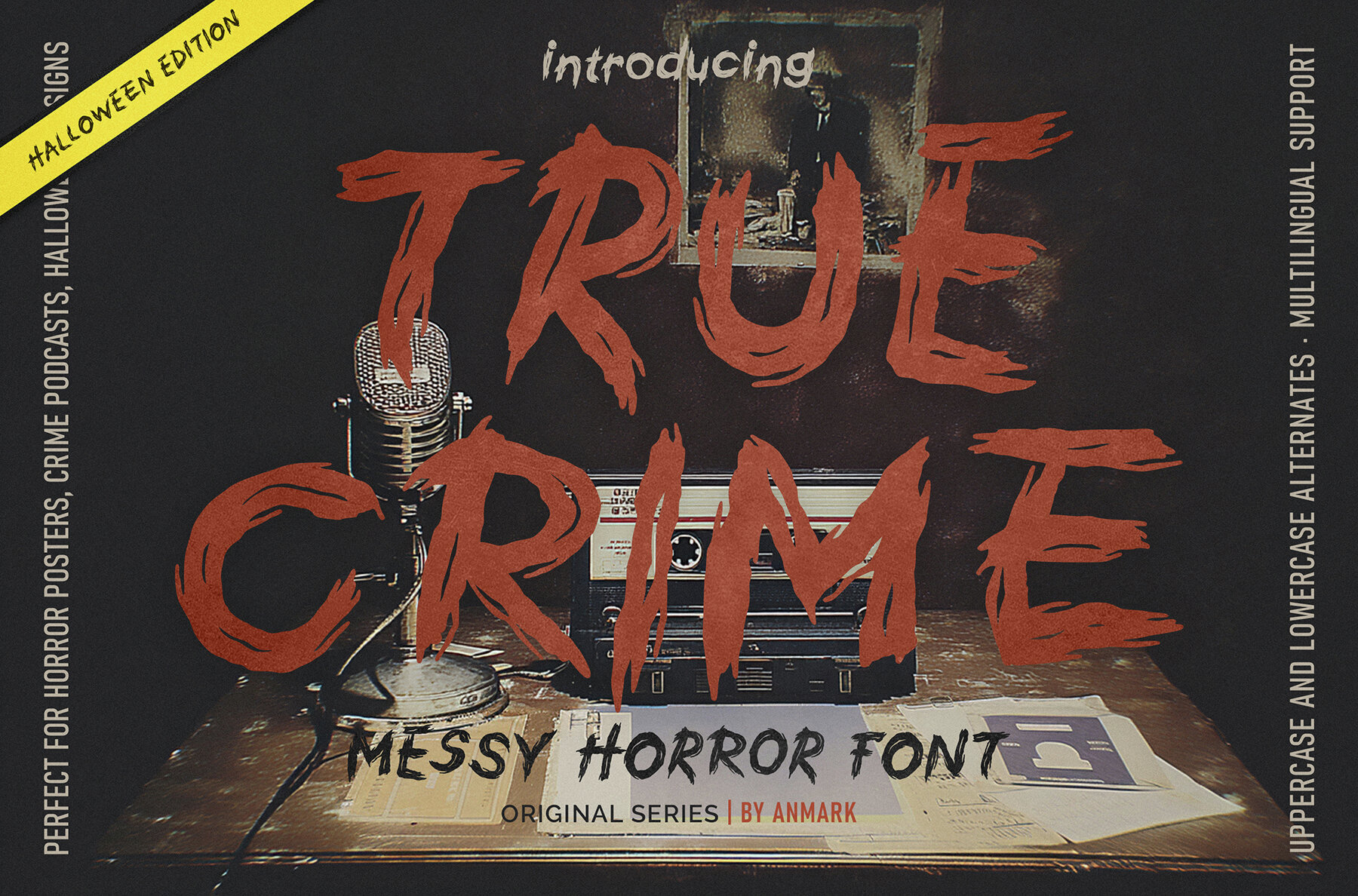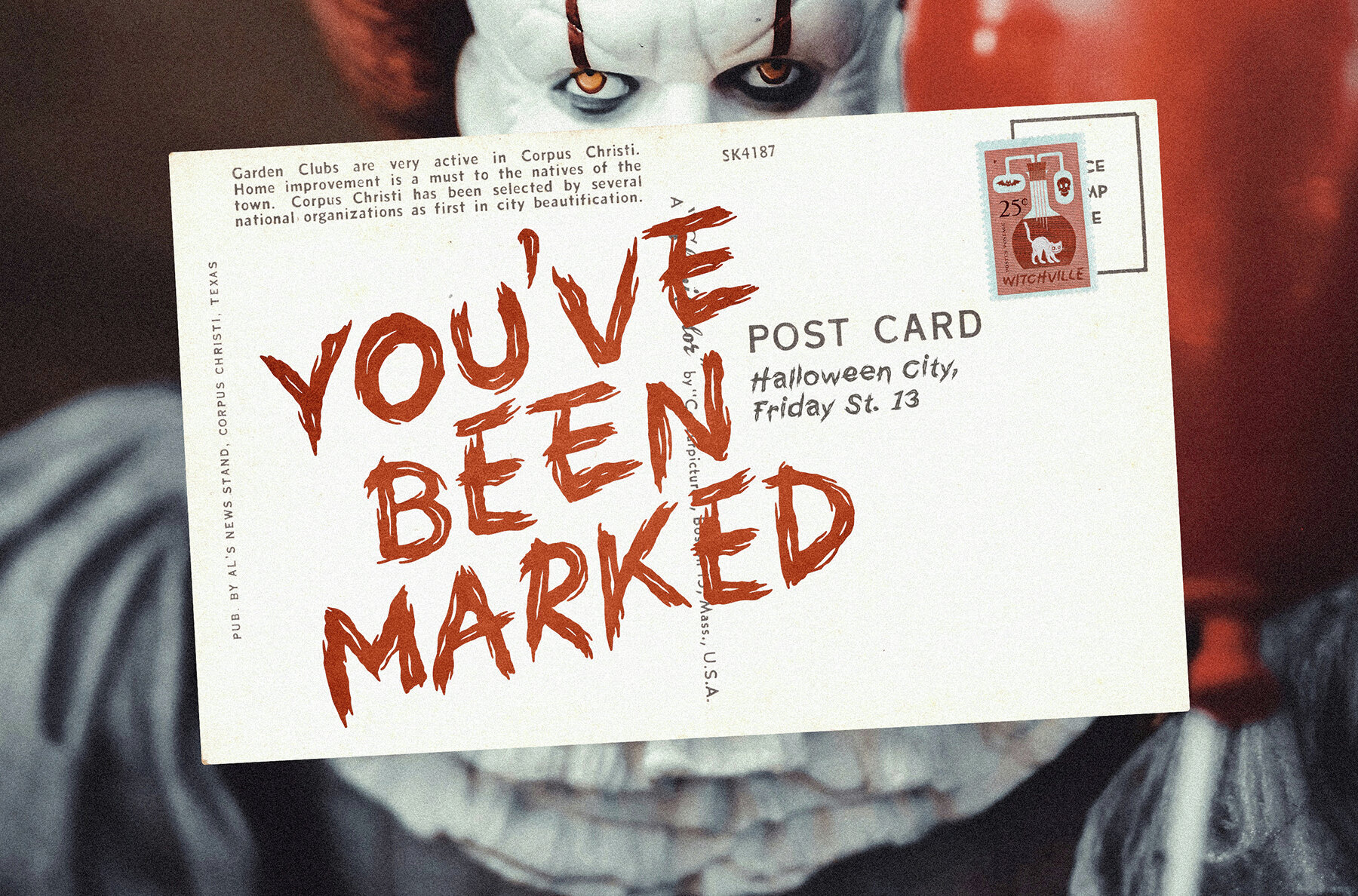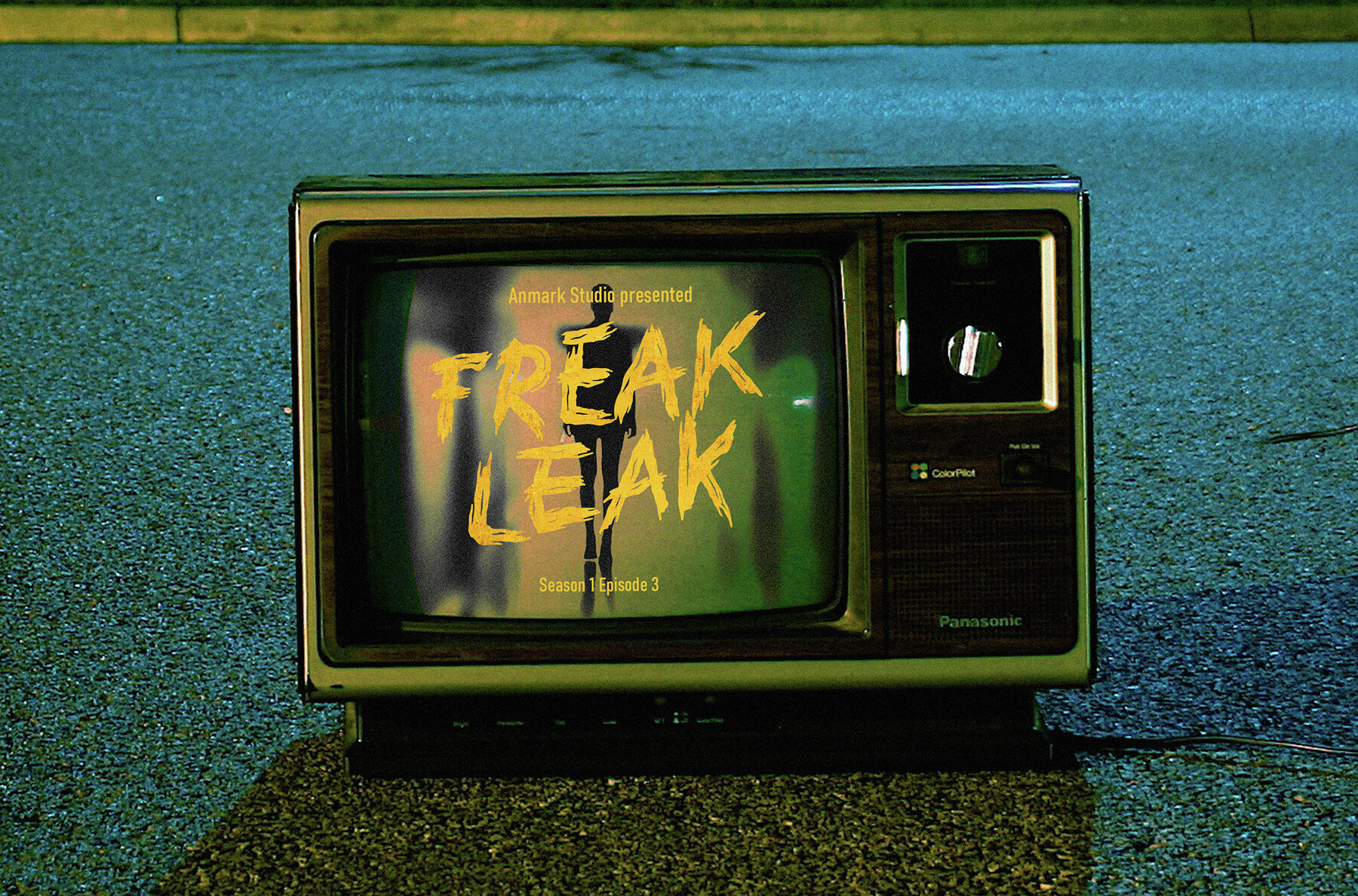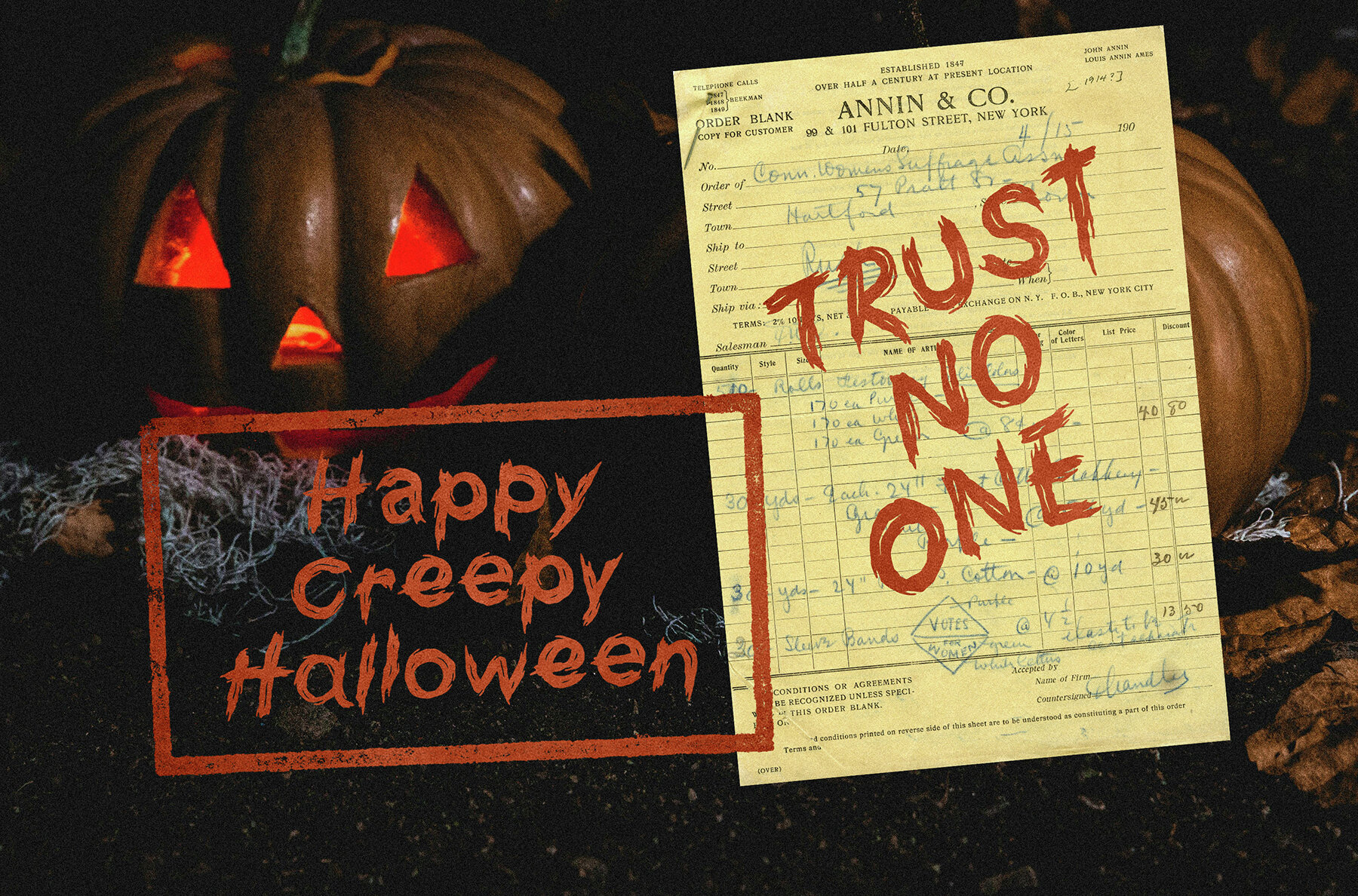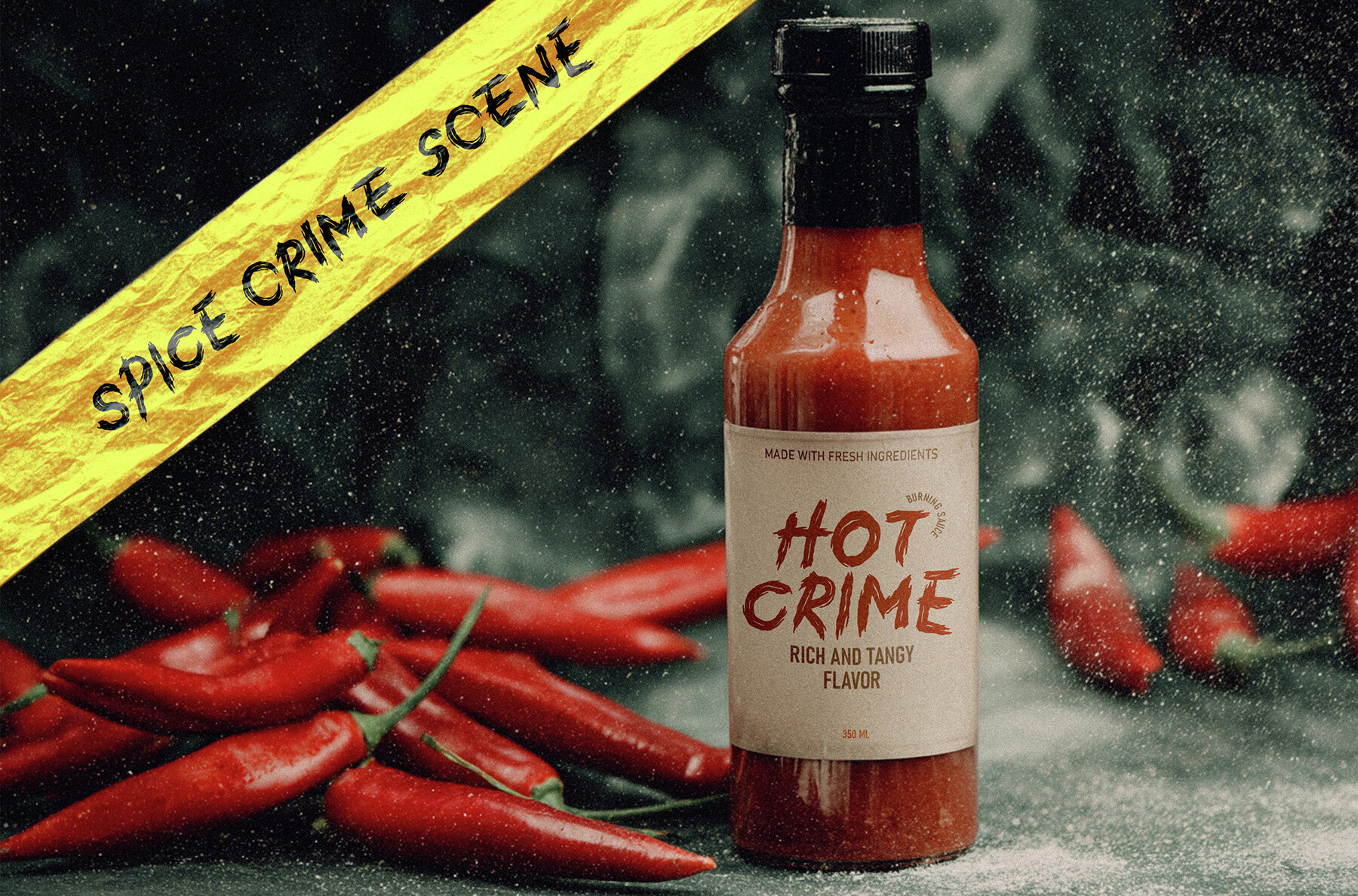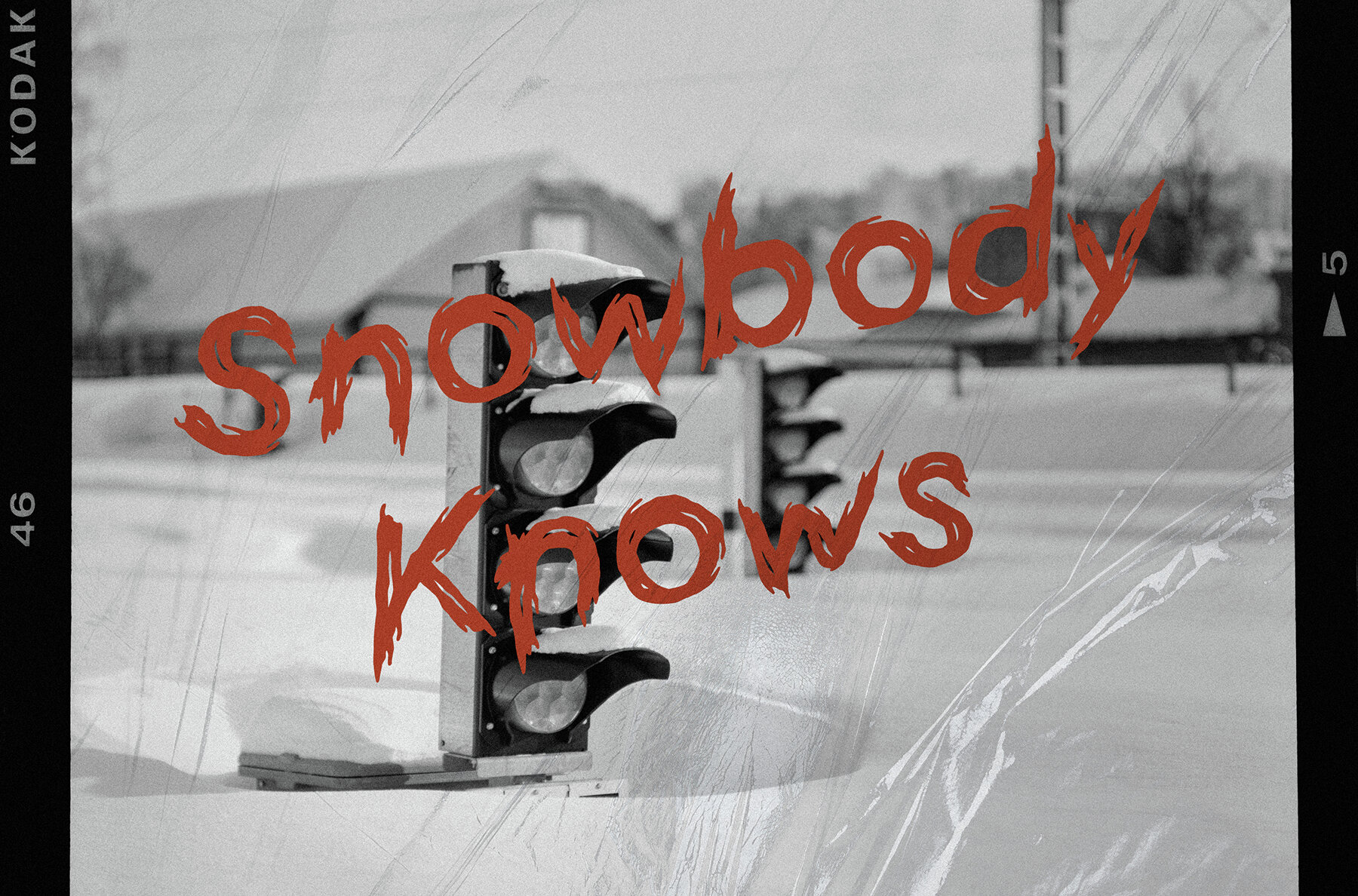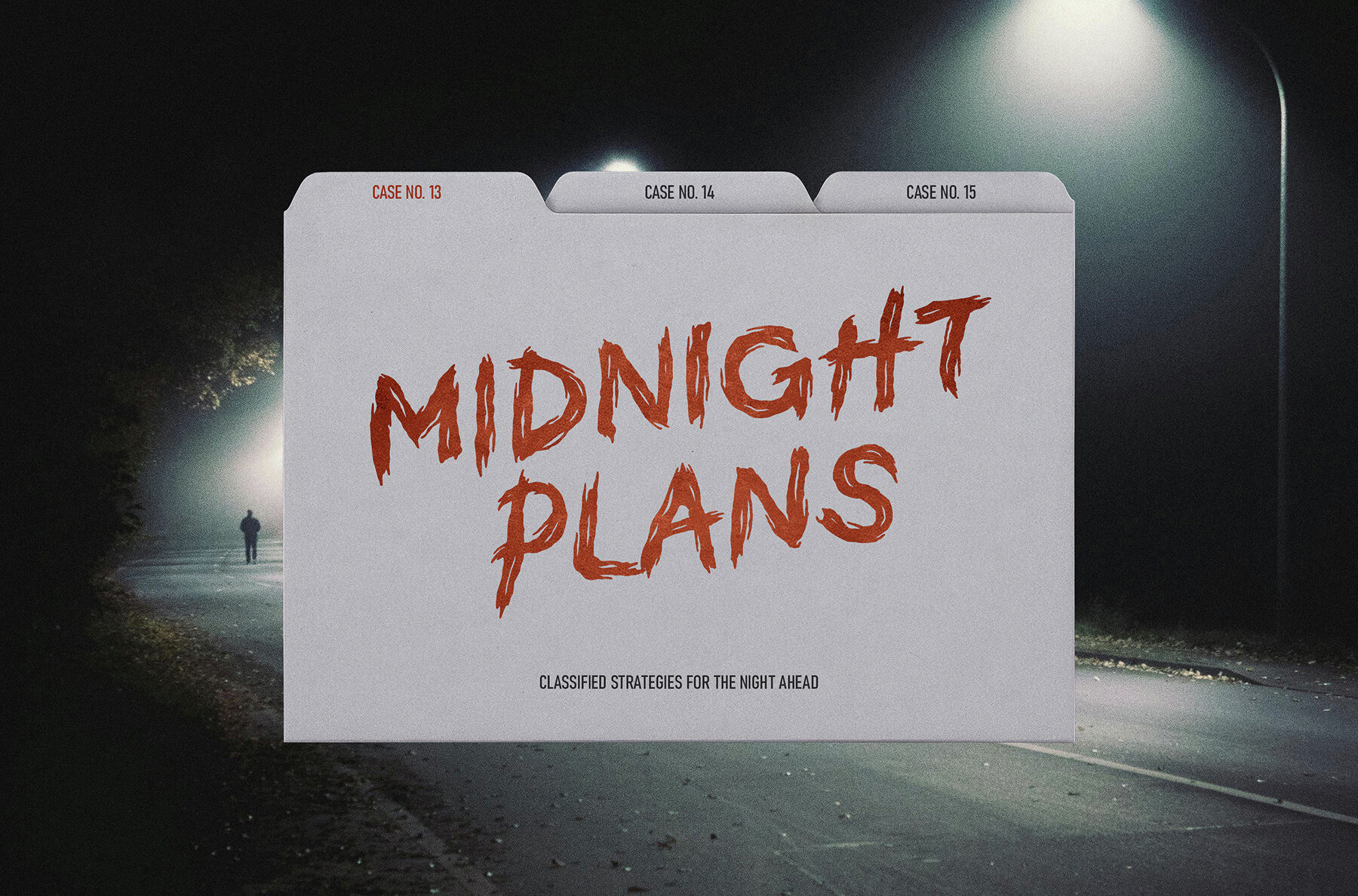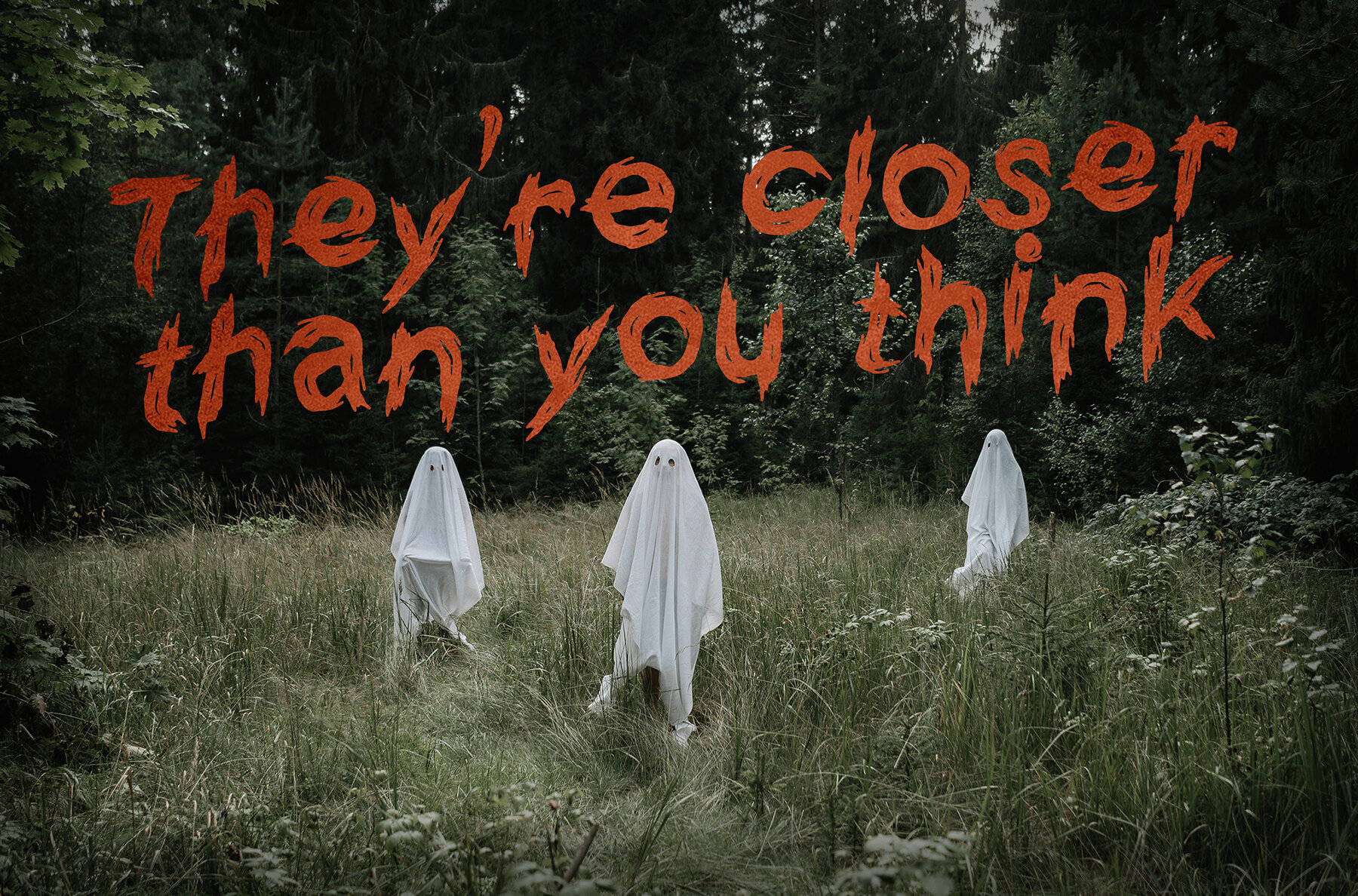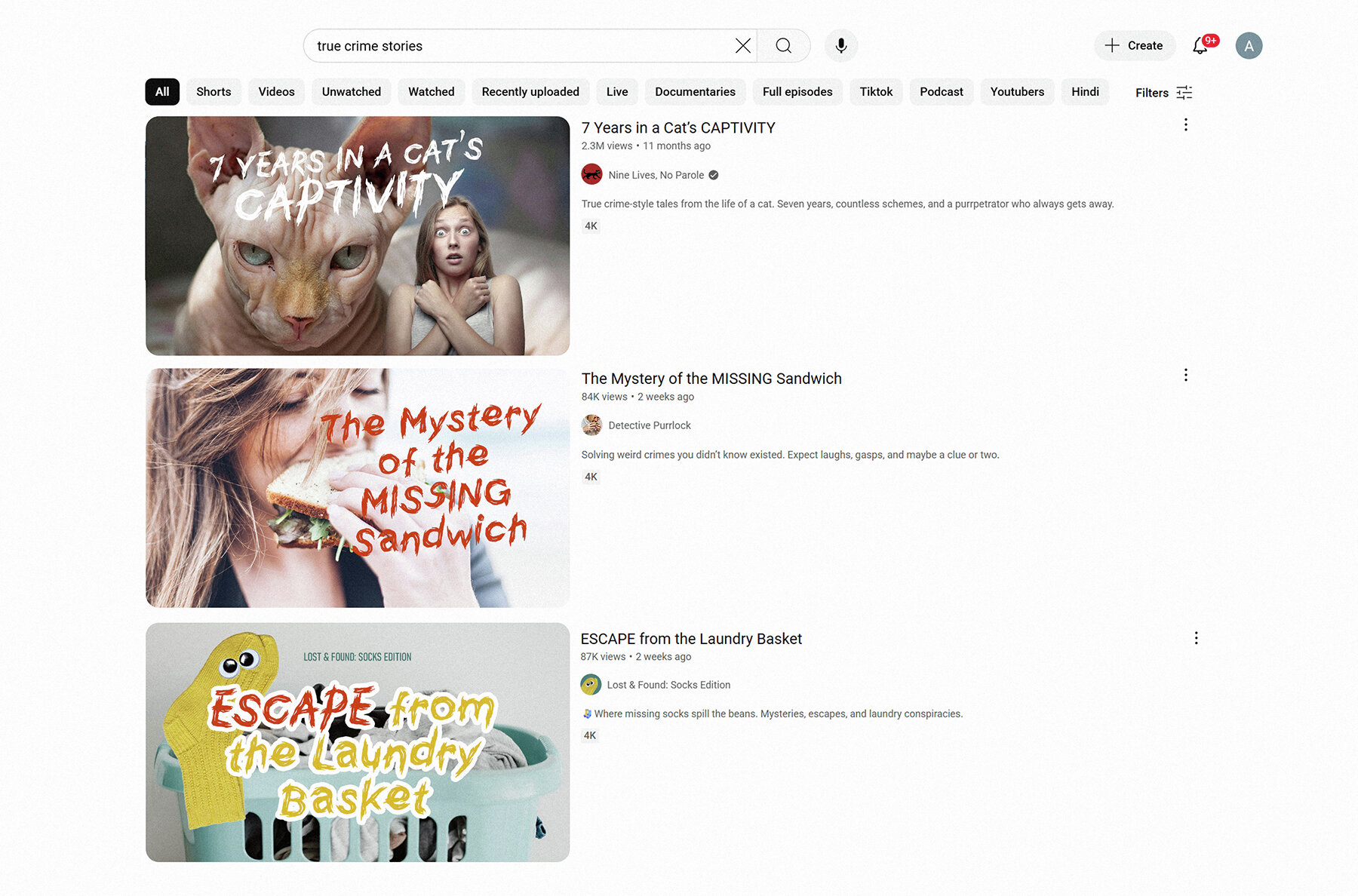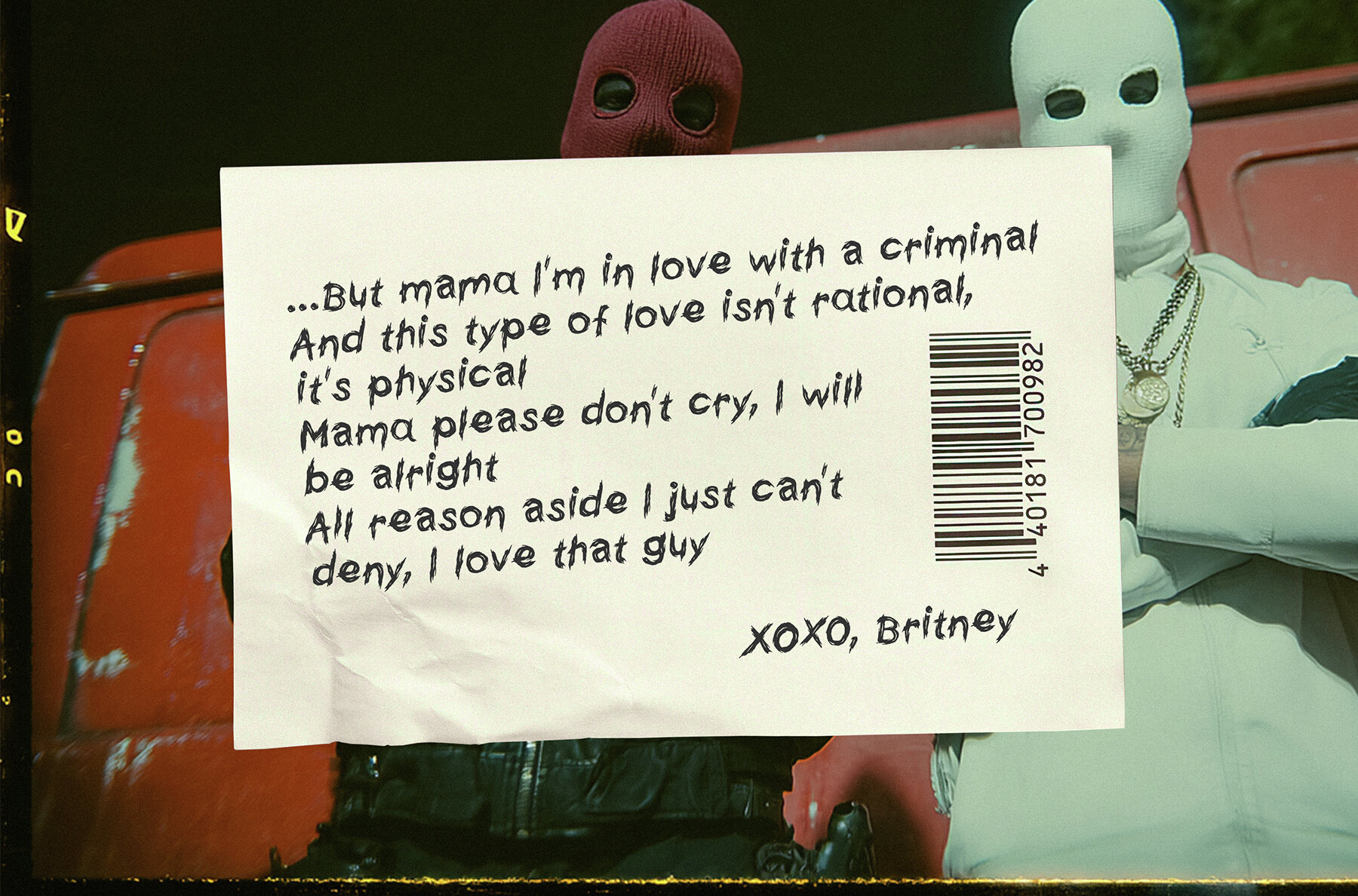
True Crime Font
True Crime
Immerse your designs in the gritty allure of True Crime, a bold horror display font that exudes tension, mystery, and ominous intrigue. This typeface stands out with its messy, chaotic texture and offers uppercase and lowercase alternates for dynamic, eye-catching typography. With multilingual support, True Crime is accessible to a global audience of designers eager to create eerie and suspenseful visuals. Enhance your digital or print projects with an edgy and dramatic aesthetic. True Crime seamlessly elevates any thriller, horror, mystery, or crime-themed design, guaranteeing an unforgettable impact.True Crime: Bold Horror Font